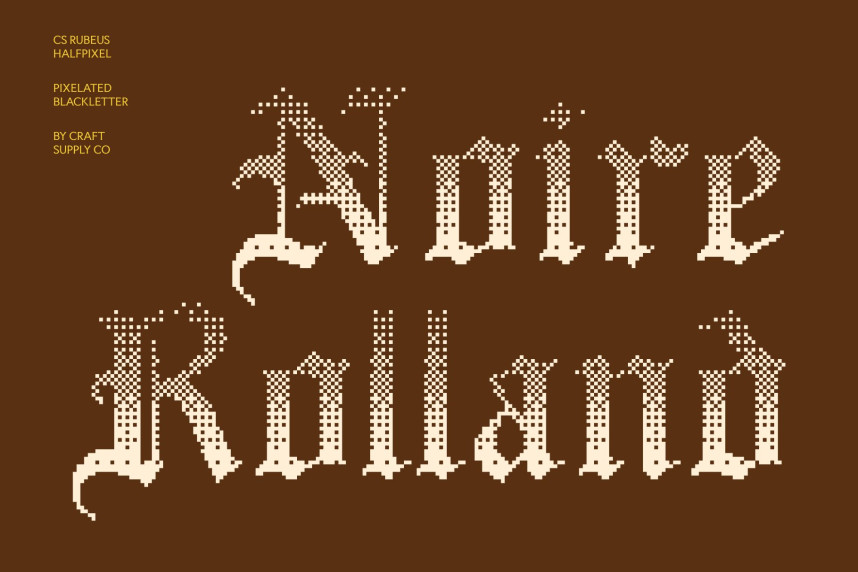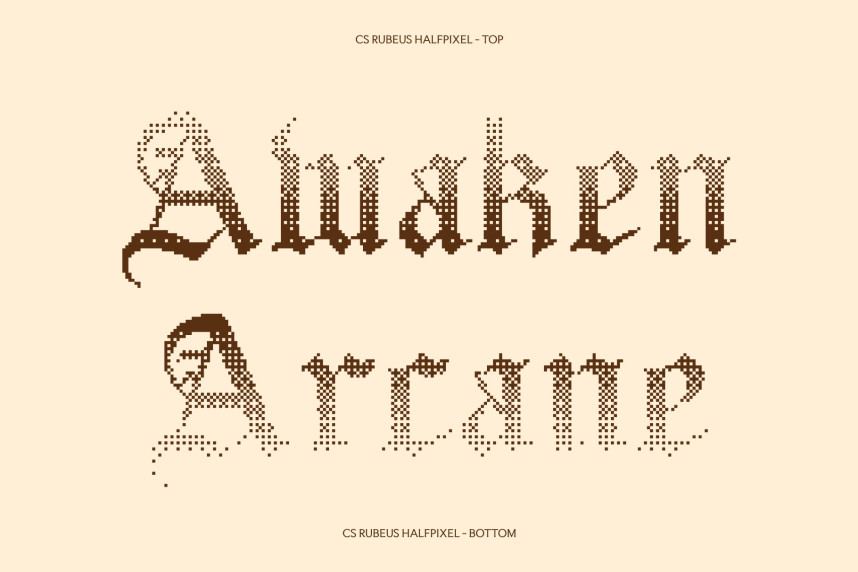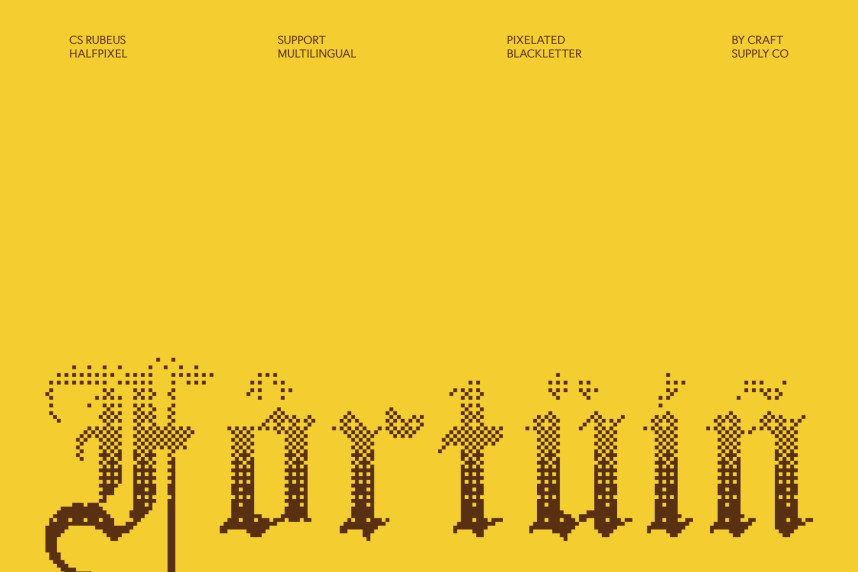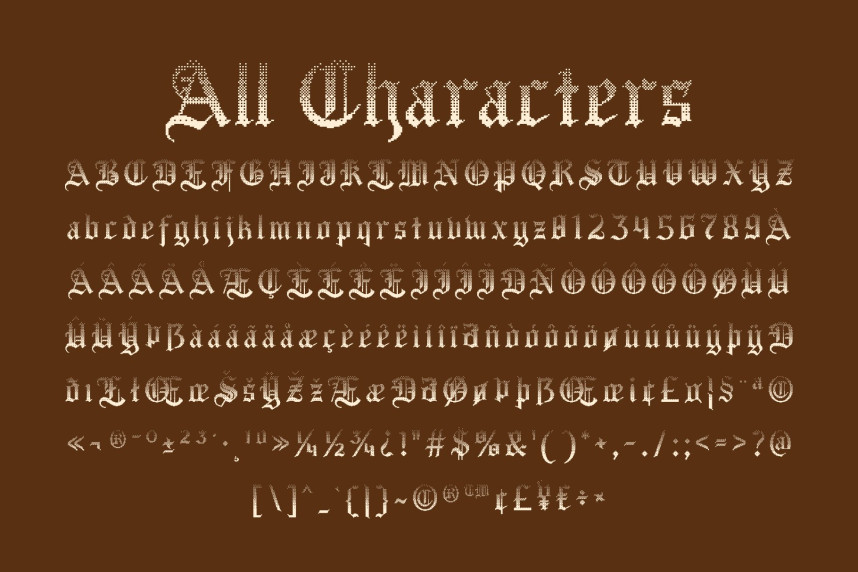
CS Rubeus Halfpixel Font
CS Rubeus Halfpixel Font – Old English Display Font: Where Medieval Heritage Meets Smooth Digital Style
Historic Blackletter Letterforms with Ornate Detail
This is an Old English display font that captures the intricate charm of medieval Blackletter typography through bold vertical strokes, sharp angles, and elaborate decorative details. Inspired by historic manuscripts and Gothic calligraphy, its expressive forms create a dramatic and authoritative visual presence that evokes tradition, craftsmanship, and timeless elegance.